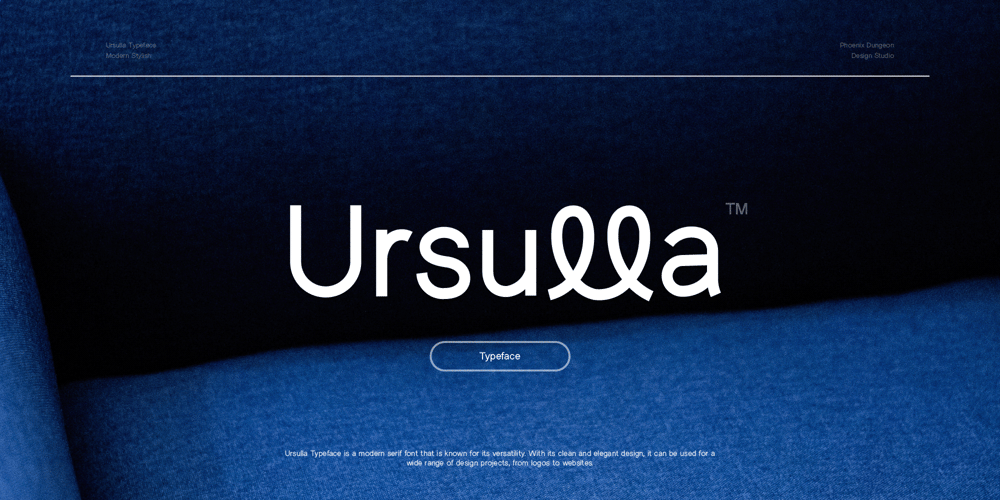
Ursulla Font Family was designed by Alif Naufal Muzakki and published by Phoenix Group. Ursulla contains 6 styles and family package options. Ursulla Typeface is a modern serif font that is known for its versatility. With its clean and elegant design, it can be used for a wide range of design projects, from logos to websites.